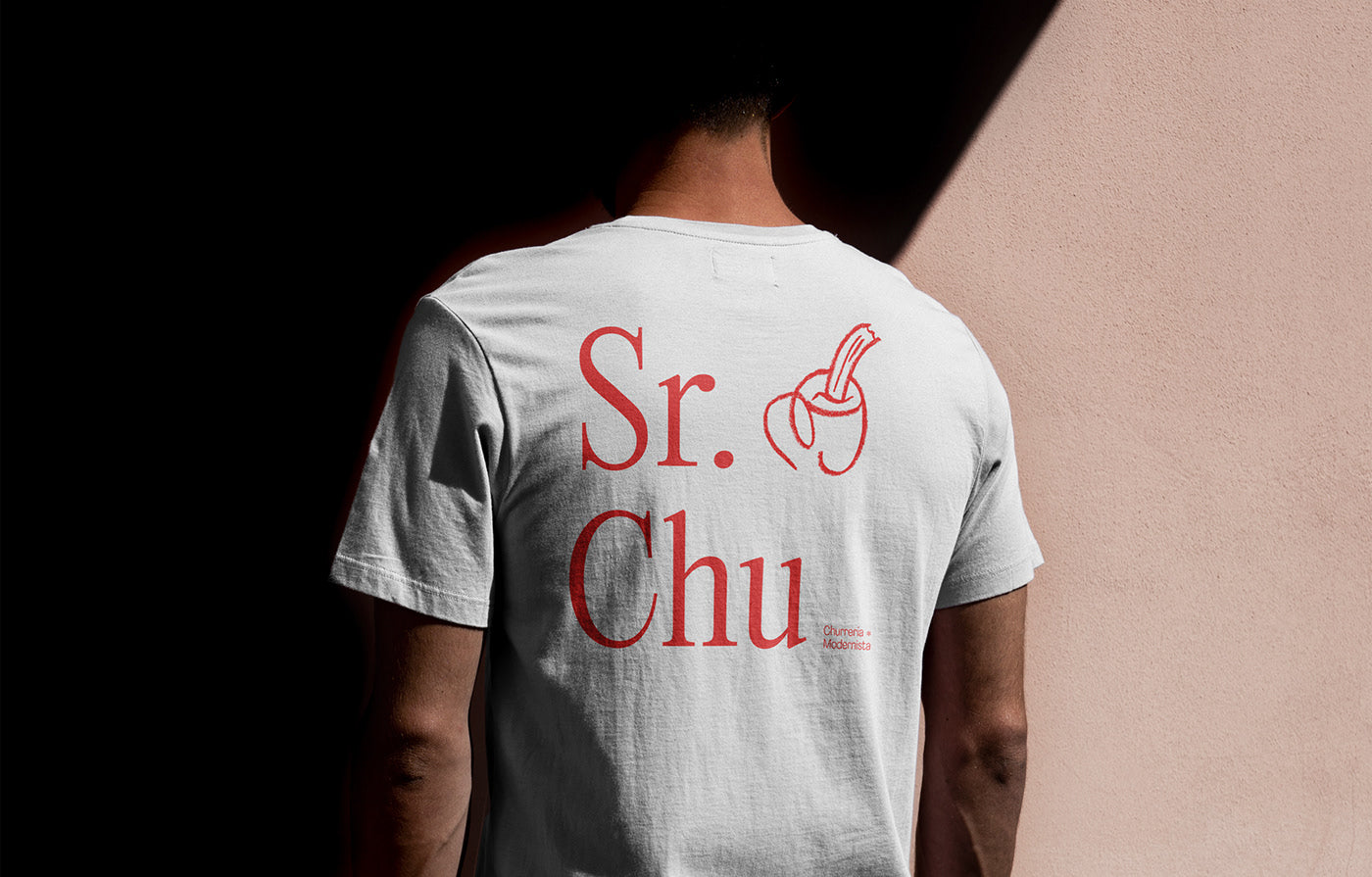
How to decontextualize a popular product from the collective imaginary? How to bring a traditional product to a young audience? How to present a vernacular essence in a current context?
These are questions by which Mr. Chu arises from. A personal project that explores the idea of launching a "churrería", a local and traditional business located in Madrid, to a new customer segment, and also a product adapted to the delivery platforms that are in constant demand.
The concept winks Valle Inclan's Madrid who coined the name of "buñolería modernista" to these innovative and local businesses along his work and books. At the same time the dispute over the invention of the churro is represented. If it belongs to ancient China is linked to the process of naming and positioning of the brand.
The result is a visual identity with illustration as the core of a visual system which opts for an organic, hand-drawn style together with a thoughtful and coherent typographic choice. All they form a fun and warm branding visual language. The brand's lexical universe involves bringing young audiences to reach a brand designed for them. At the same time it reflects the “modernist” environment of Valle Inclan's work.